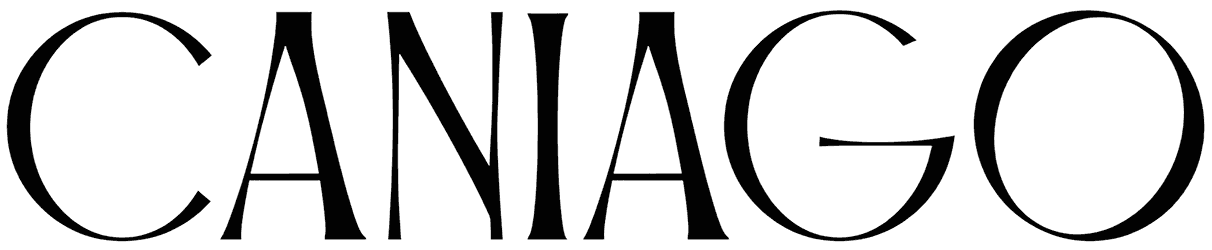
Caniago Font
Caniago font is a combination of modern and sans serif fonts. Not every font can give you the thin and thick lines and the difference at the end of the lines. This elegant and luxurious sans serif font does not have lowe…
Caniago font is a combination of modern and sans serif fonts. Not every font can give you the thin and thick lines and the difference at the end of the lines. This elegant and luxurious sans serif font does not have lowercase letters, but the other letters are beautiful enough to create a stunning design.